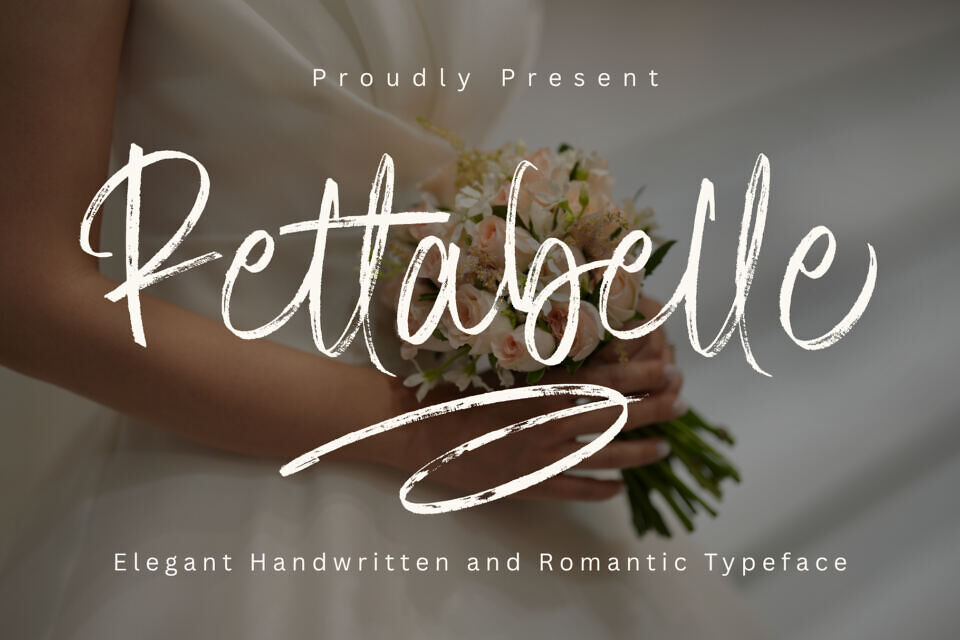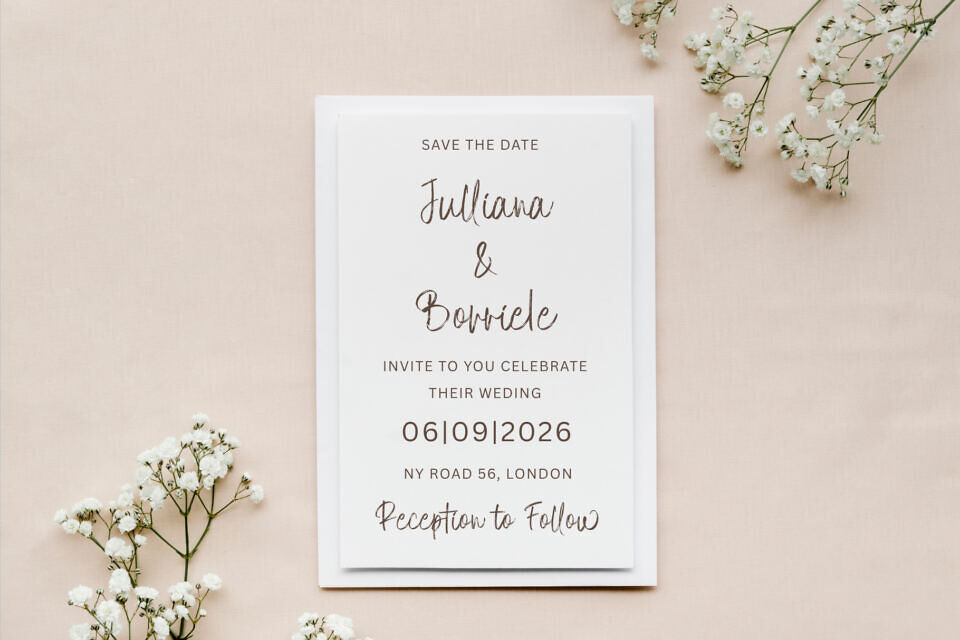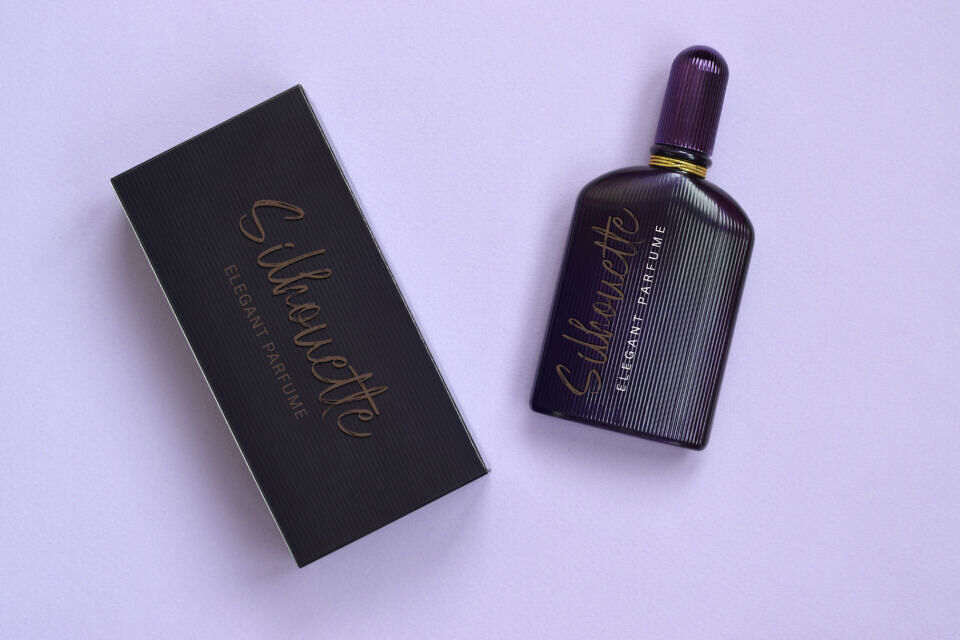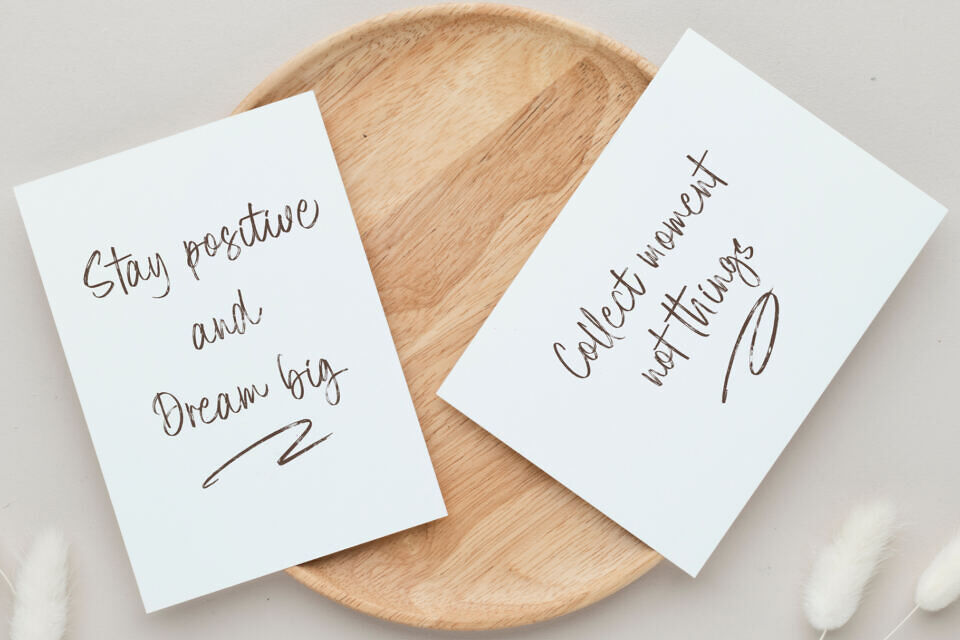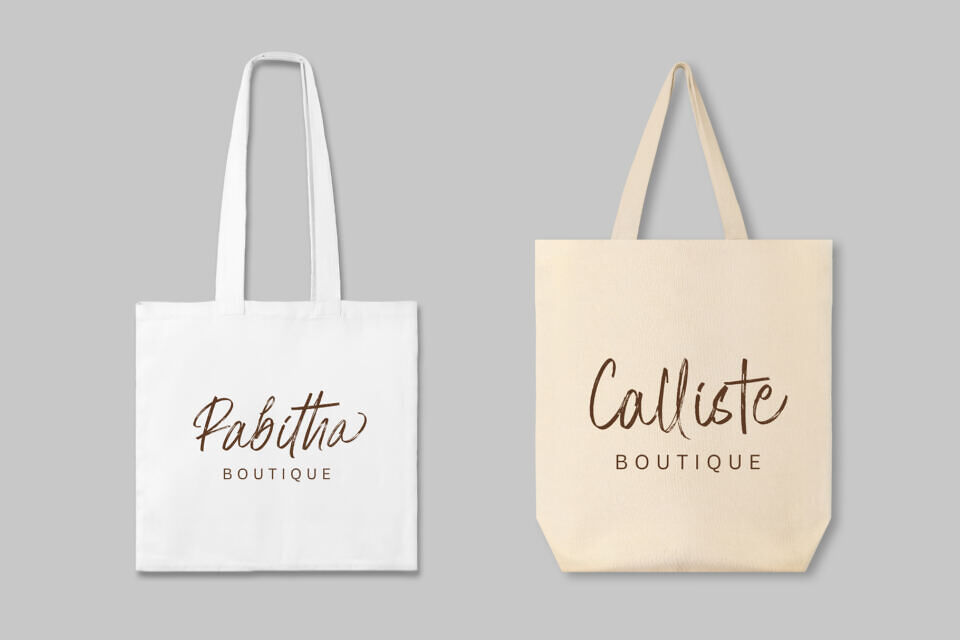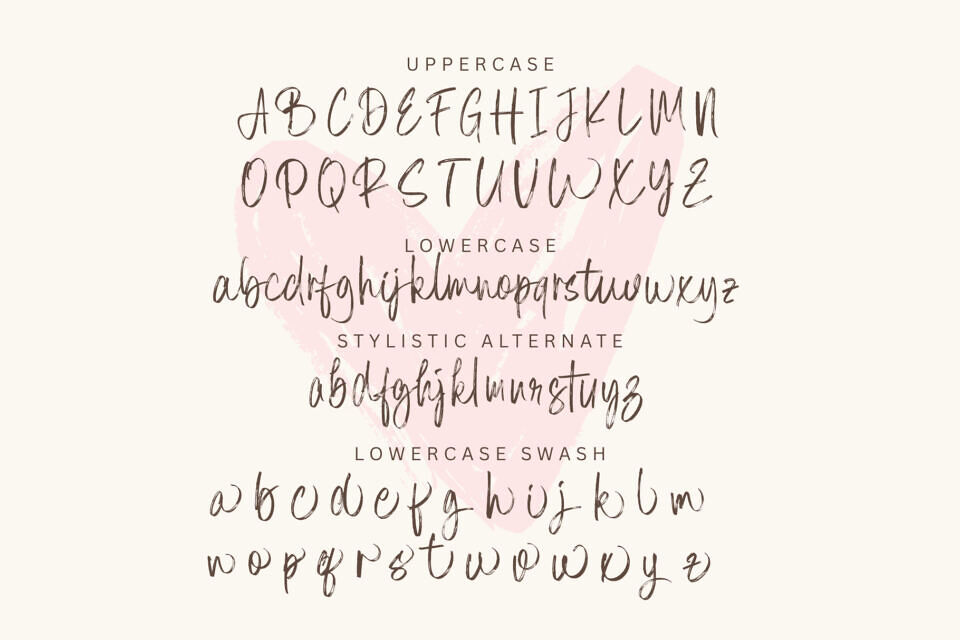
Introducing Rettabelle, a gracefully refined typeface, sculpted with the charm of natural brush handwriting. Its romantic aesthetics are ideal for crafting enchanting wedding invitations, distinct branding, stylish logos, engaging social media content, inspiring quotes, and designs that embody femininity. Rettabelle boasts exquisite ligatures and fluid strokes, providing an authentic touch that mirrors the elegance of handwritten text.